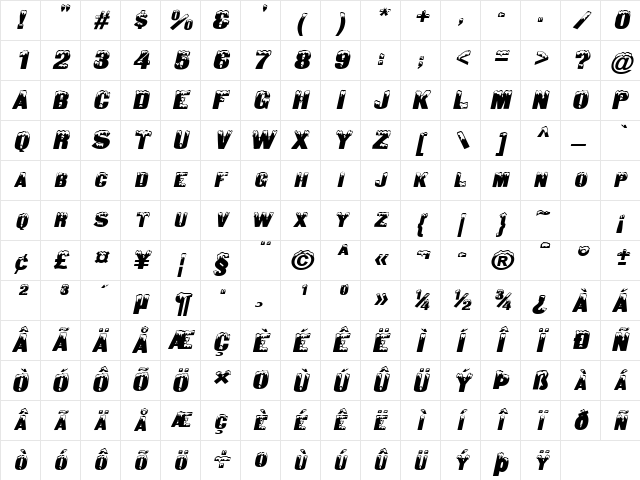
Snow CapsExtended Italic Free Font
Snow CapsExtended Italic
Snow CapsExtended Family
Design Context for Snow CapsExtended
Snow CapsExtended is a composed and adaptable typeface that performs quietly and consistently across a wide range of design contexts. The slanted form adds forward momentum and visual energy.
Pro Tip: Use Snow CapsExtended for emphasis, pull quotes, and subheadings where its slanted energy can add rhythm to the layout.